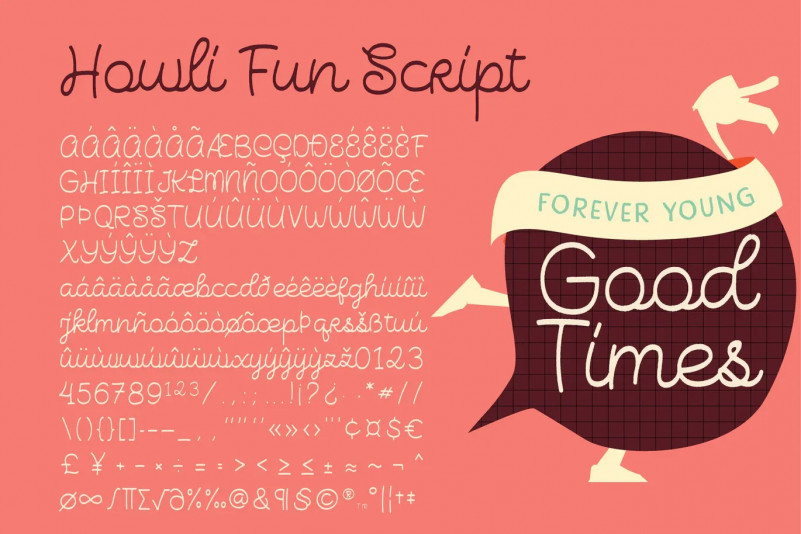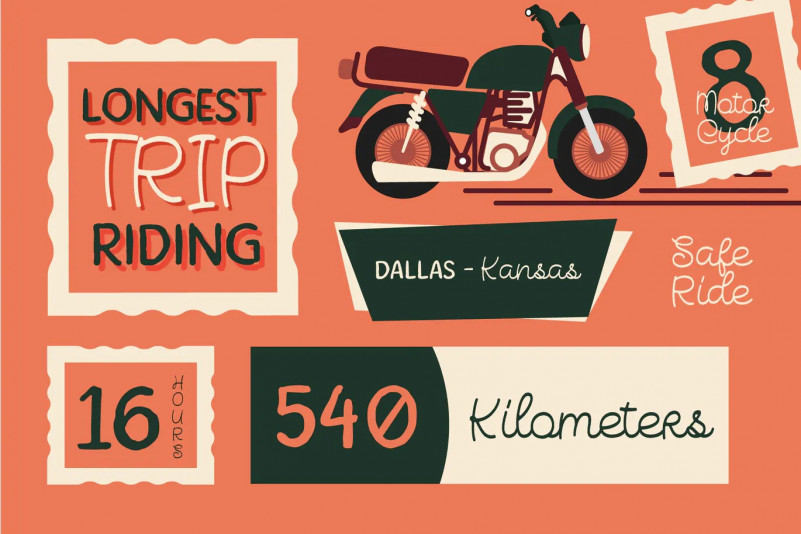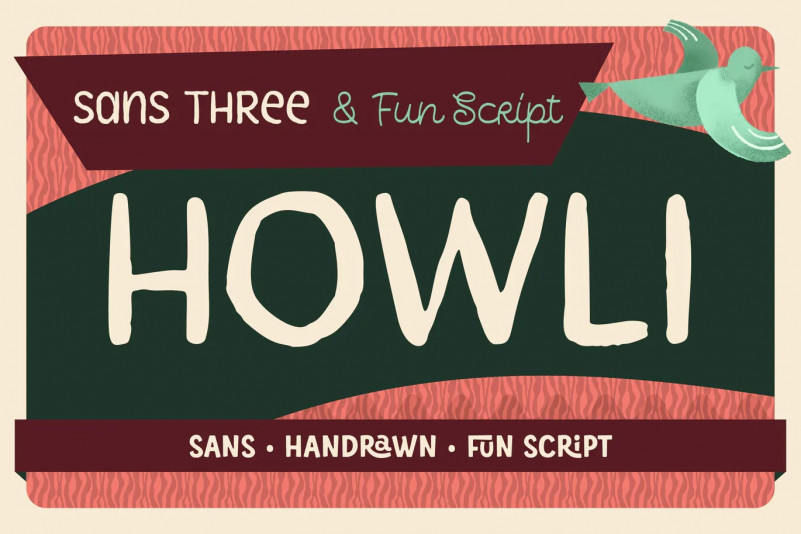
Another Howli Fonts ! Howli are a combinations of fonts that fits with the playful concept. Purely created in a hand drawn to create a unique rough. An exploration of a playful theme with nice & cute look and you can combine within 7 styles.
Howli Font